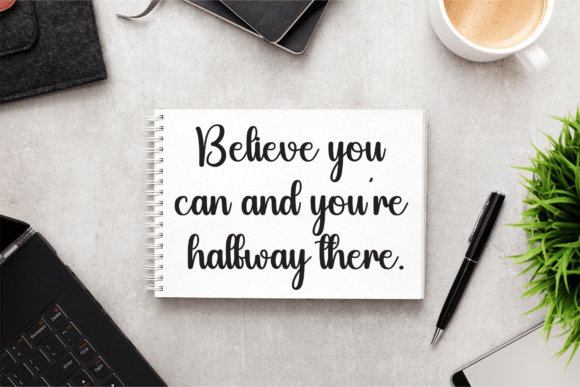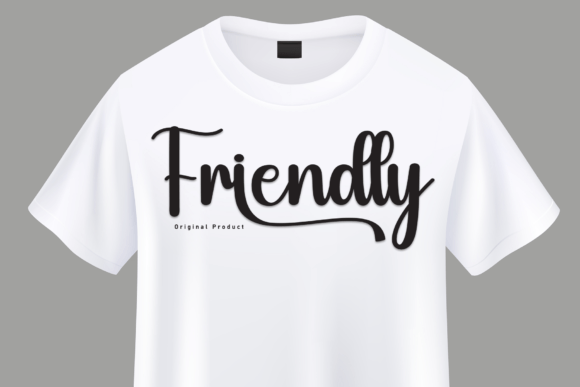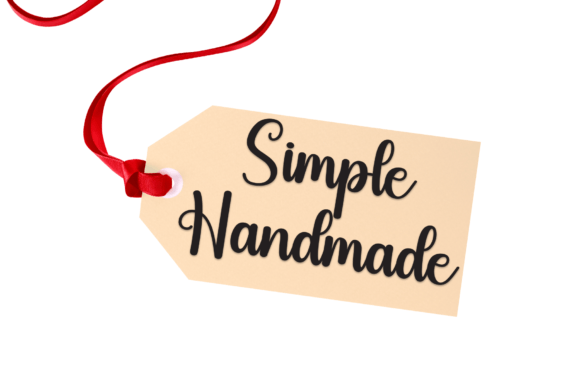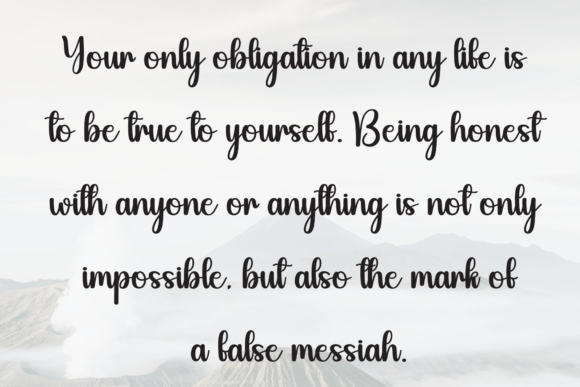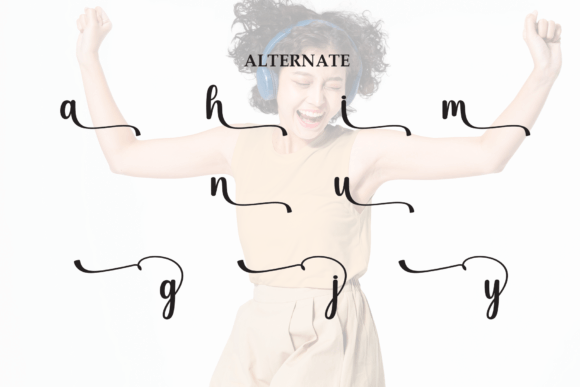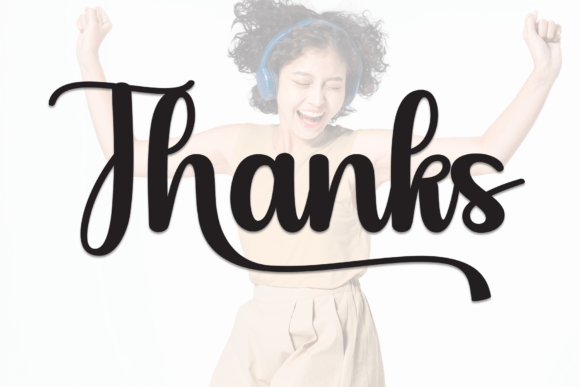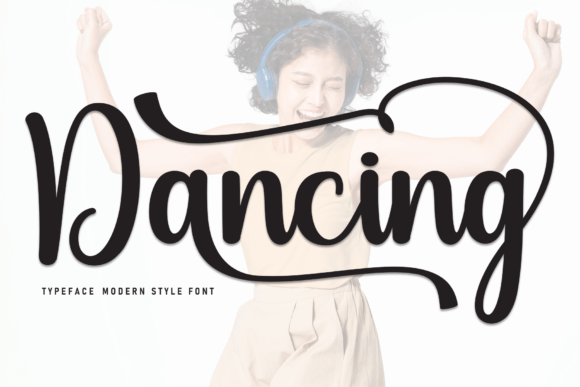
Dancing Font: Add a Touch of Whimsy to Your Designs
Are you looking for a font that can add a dash of fun and playfulness to your designs? Look no further than the Dancing Font! This sweet and friendly handwritten display font is perfect for creating eye-catching wedding invitations, cards, and other designs that require a touch of whimsy.
What is Dancing Font?
Dancing Font is a beautiful, hand-crafted font that is designed to bring a sense of joy and friendliness to your designs. With its cute and fun appearance, this font is ideal for use in a variety of creative projects, from wedding invitations and cards to posters, flyers, and more.
Key Features of Dancing Font
- Handwritten display font: Dancing Font is a carefully crafted handwritten font that is designed to look like it was written with love and care.
- Cute and fun: This font is perfect for designs that require a playful touch, making it ideal for use in wedding invitations, birthday cards, and other celebratory designs.
- Easy to read: Despite its playful appearance, Dancing Font is easy to read, making it perfect for use in designs where clarity is important.
- Versatile: Dancing Font can be used in a wide range of designs, from formal wedding invitations to casual birthday cards and more.
Uses for Dancing Font
Dancing Font is a versatile font that can be used in a wide range of designs, including:
- Wedding invitations: Add a touch of romance and whimsy to your wedding invitations with Dancing Font.
- Cards: Use Dancing Font to create fun and playful cards for birthdays, anniversaries, and other special occasions.
- Posters and flyers: Dancing Font is perfect for use in posters and flyers that require a playful touch, such as advertisements for children’s events or promotions for a fun new product.
- Social media graphics: Add a touch of personality to your social media graphics with Dancing Font, making them stand out from the crowd.
Why Choose Dancing Font?
There are many fonts available that can add a touch of fun and playfulness to your designs, but Dancing Font stands out from the crowd. Here are just a few reasons why:
- Unique and eye-catching: Dancing Font is a one-of-a-kind font that is sure to grab attention and make your designs stand out.
- High-quality design: Dancing Font is carefully crafted to ensure that it looks great in any design, whether you’re using it for a wedding invitation or a poster.
Tips for Using Dancing Font
Here are a few tips for getting the most out of Dancing Font:
- Use it sparingly: While Dancing Font is a beautiful font, it can be overwhelming if used too much. Use it sparingly to add a touch of whimsy to your designs.
- Pair it with other fonts: Dancing Font pairs well with a variety of other fonts, so don’t be afraid to experiment with different combinations.
- Experiment with colors: Dancing Font looks great in a variety of colors, so don’t be afraid to experiment with different color schemes.
Dancing Font is a beautiful, hand-crafted font that is perfect for adding a touch of fun and playfulness to your designs. With its cute and friendly appearance, this font is ideal for use in wedding invitations, cards, posters, and more. Whether you’re a professional designer or a crafty DIY enthusiast, Dancing Font is sure to become a favorite in your font collection.